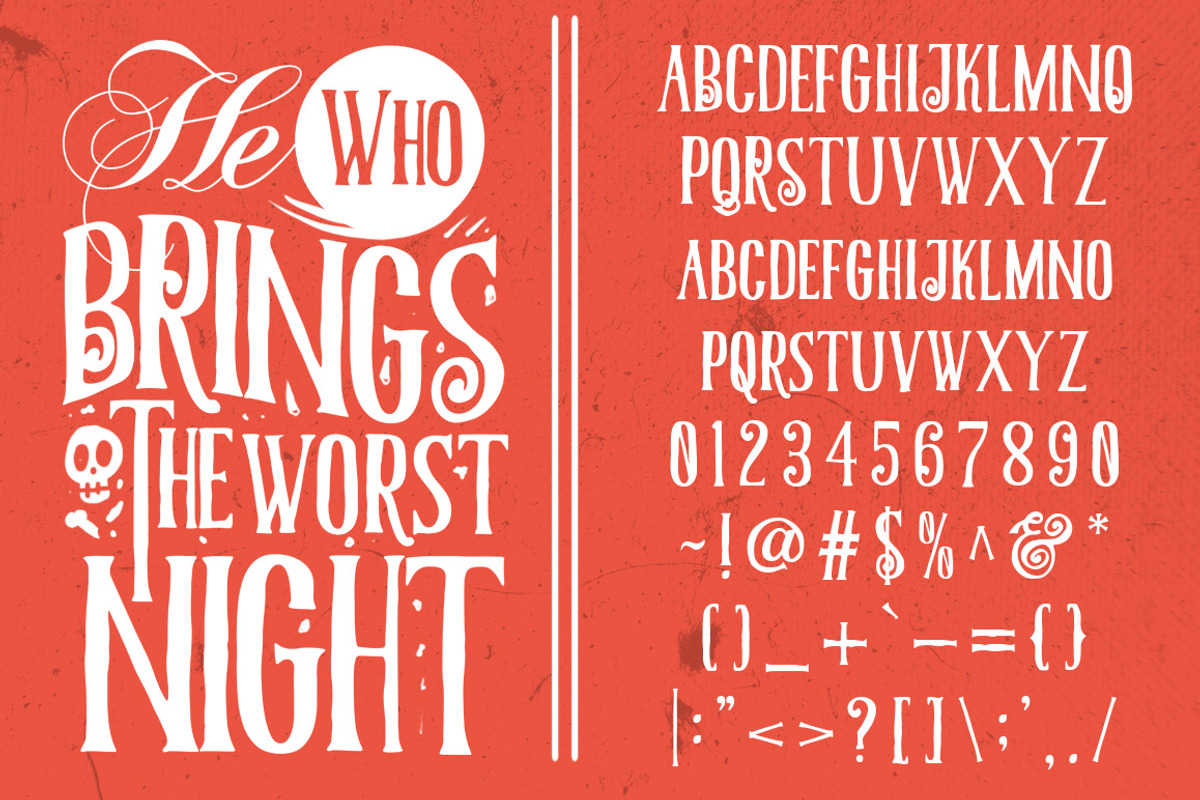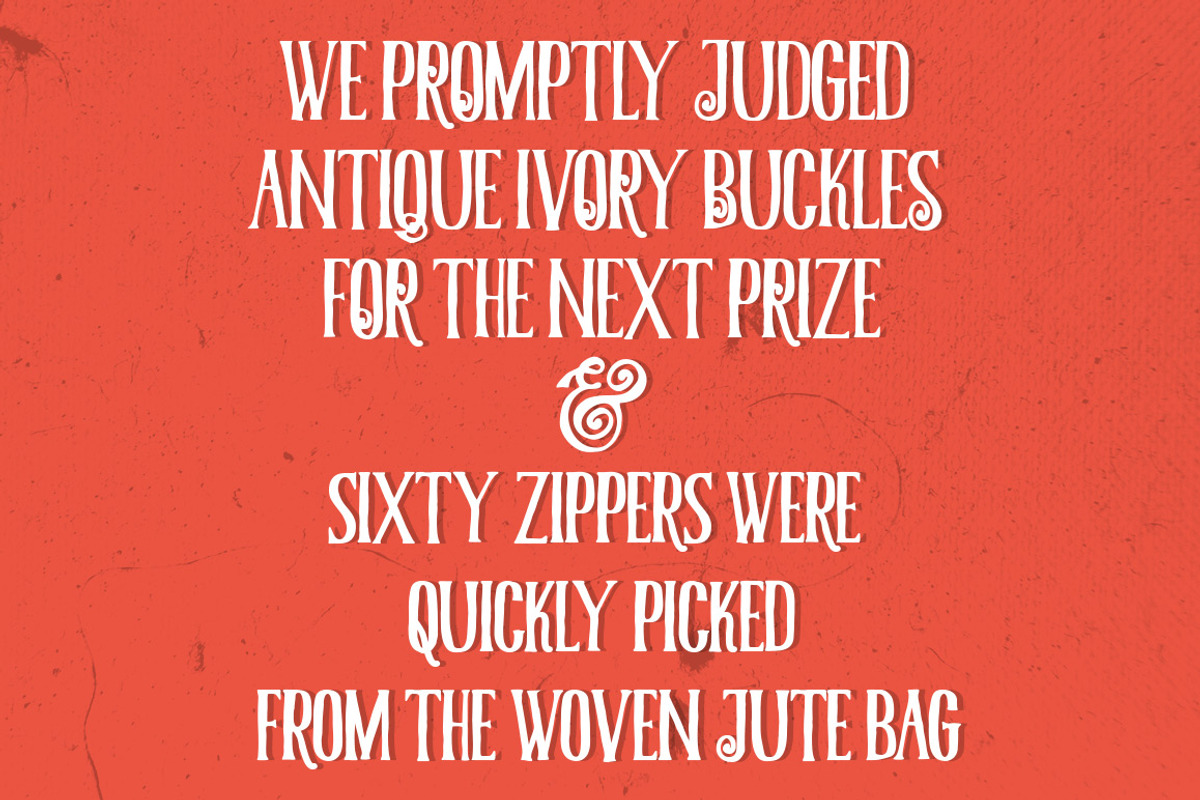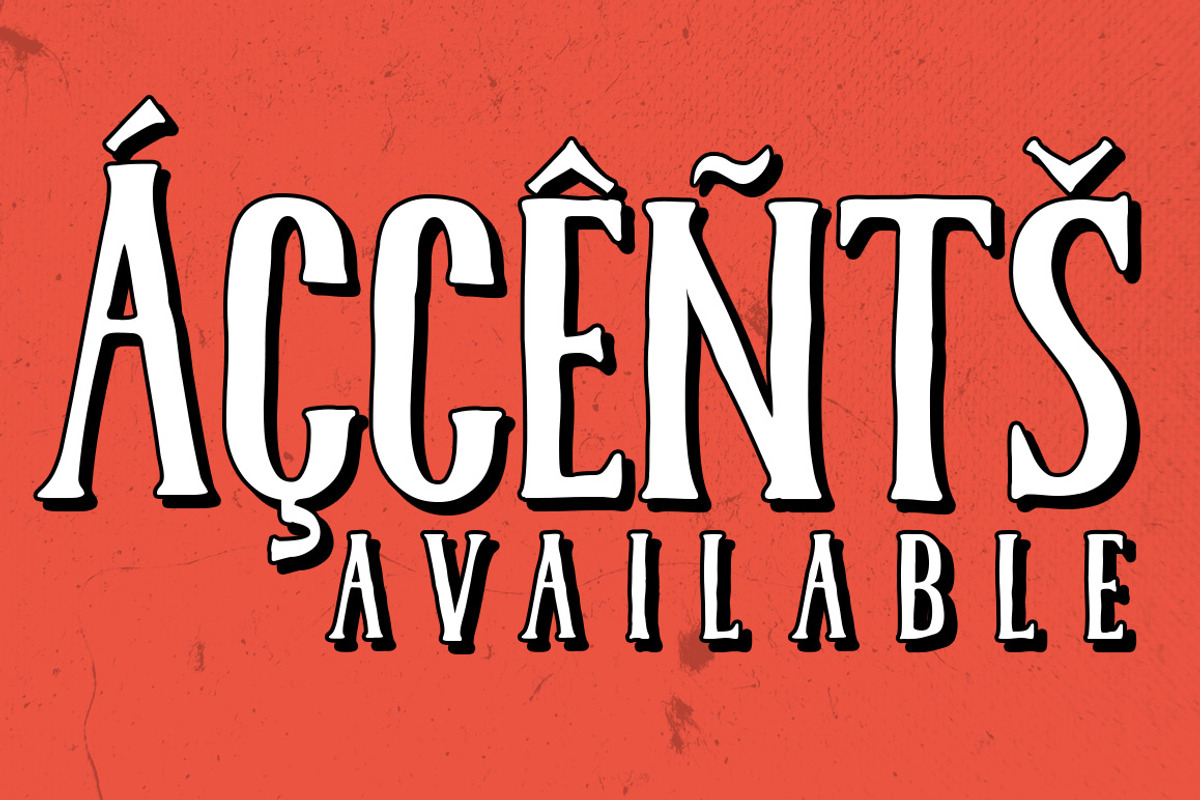
Modiaro vintage branding logo font
Modiaro vintage branding logo font by Ian Irwanwismoyo is a font selected for branding, posters, packaging, typography.
Why Modiaro vintage branding logo font is worth a look
Modiaro vintage branding logo font by Ian Irwanwismoyo fits naturally into Branding, posters, packaging, typography.